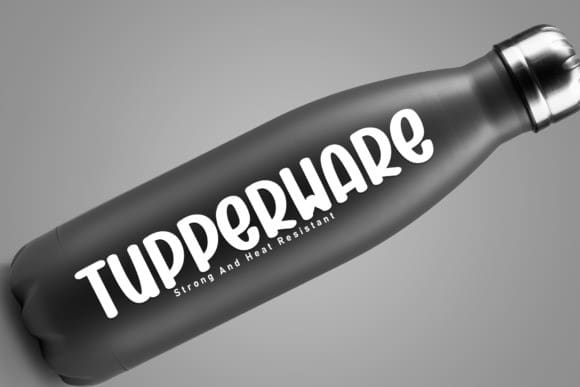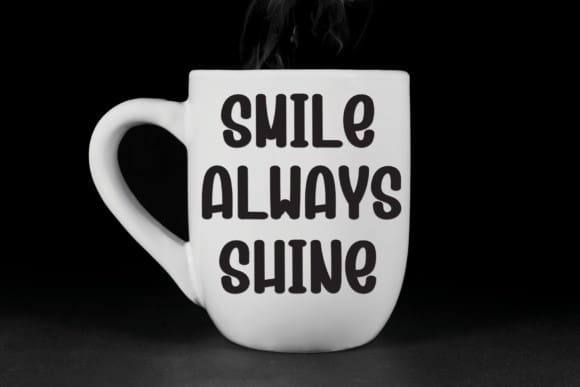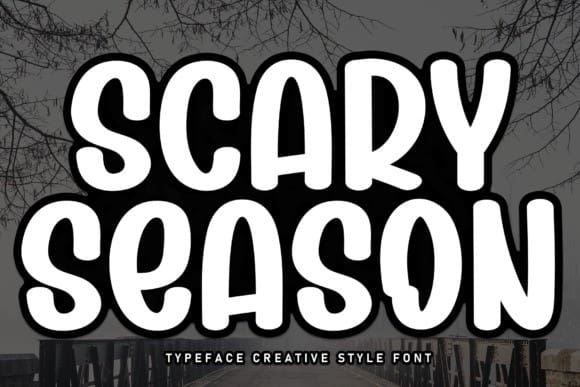
Scary Season Font
Scary Season Font is a sweet and friendly handwritten font. Its natural and unique style makes it incredibly fitting to a large pool of designs. The only limit is your imagination!